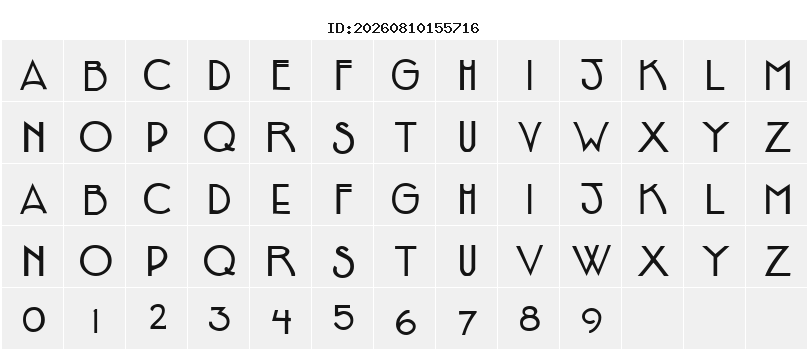
Queen of Everything.ttf is a modern, elegant sans-serif font designed for ultimate readability and visual harmony. Perfect for branding, headlines, web design, and print materials.